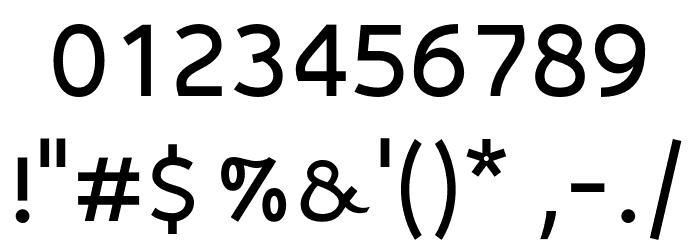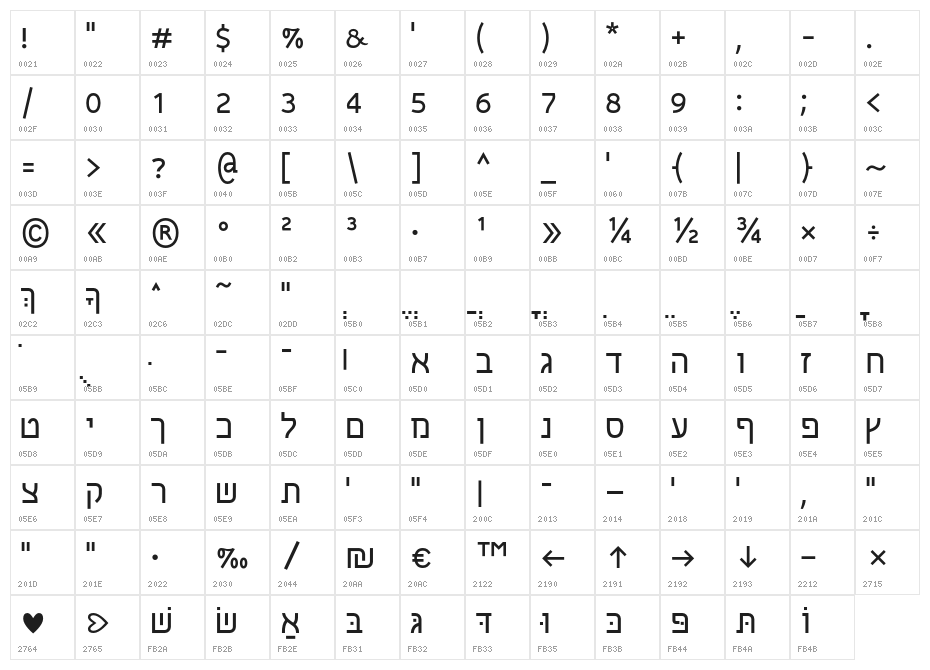
CarmelitRegular Font
CarmelitRegular Description
This font features a clean and modern sans-serif style with smooth curves and a balanced structure. The characters are evenly spaced, offering excellent readability. The numerals are distinct and clear, making them suitable for various applications. Special characters are well-defined, maintaining the font's overall aesthetic. Its simplicity and elegance make it versatile for both digital and print media.
| Proposed Projects | Ideal for web design, branding, advertising, and editorial layouts. |